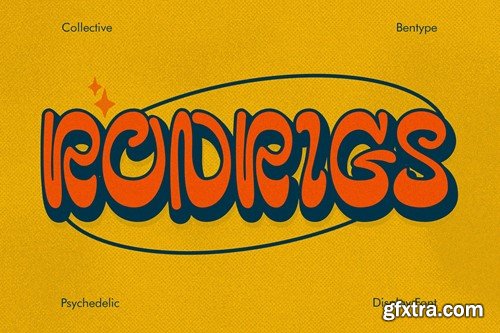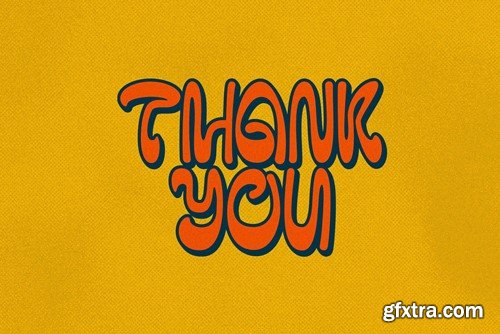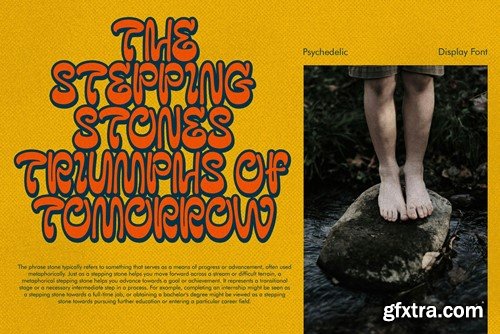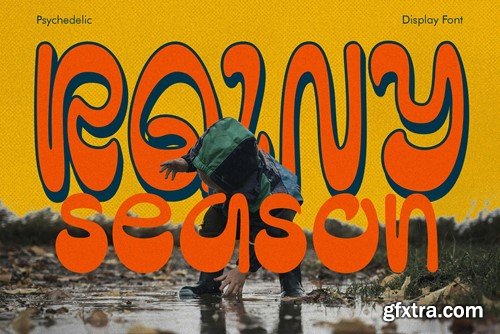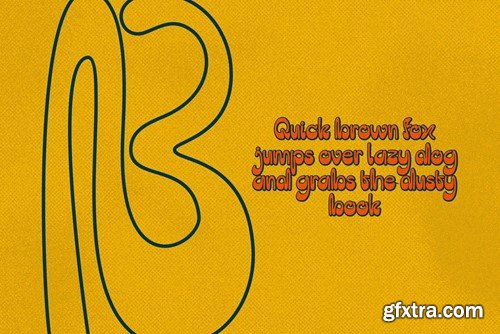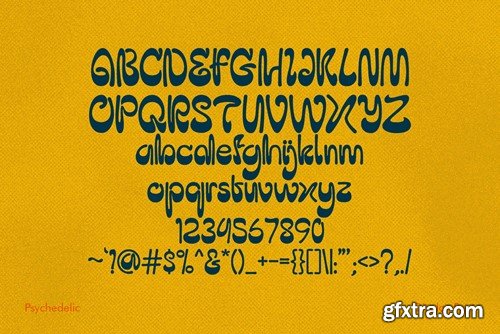
Rodrigs - 精神药丸式展示字体 ACV3AU9
Rodrigs - Psychedelic Display Font
Rodrigs - Psychedelic Display Font are a vivid reflection of the vibrant. These fonts embody a sense of experimentation, free expression, and unconventional design, often inspired by hallucinatory experiences, art, and music of that era. Rodrigs - Psychedelia display font can be captivating for artistic and expressive projects, but readability might sometimes be sacrificed for the sake of visual impact. As a result, they are often more suited for display purposes, logos, posters, or artistic endeavors where legibility is not the primary concern. Features : Uppercase & lowercase Numbers and punctuation Feel free to contact us if you have any questions..